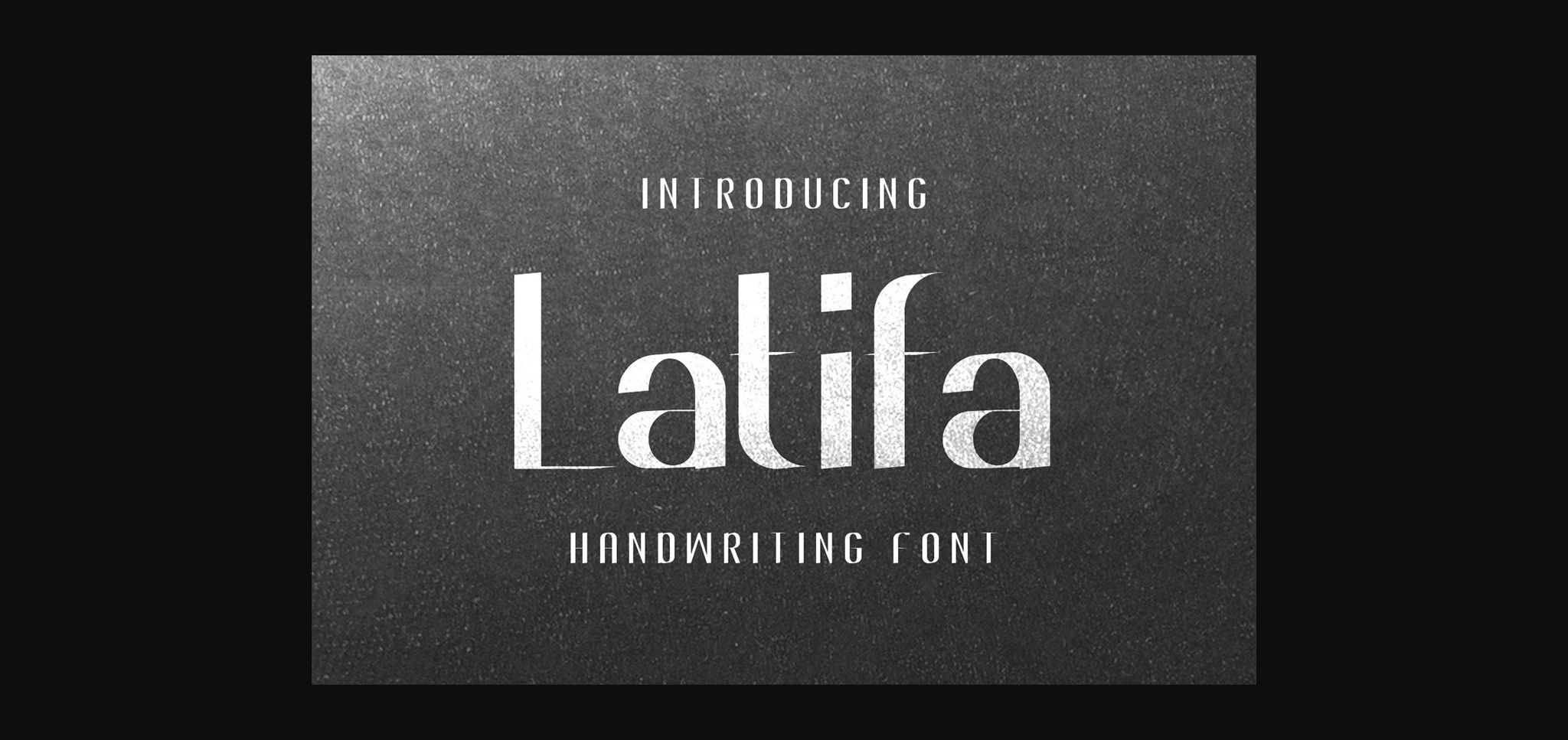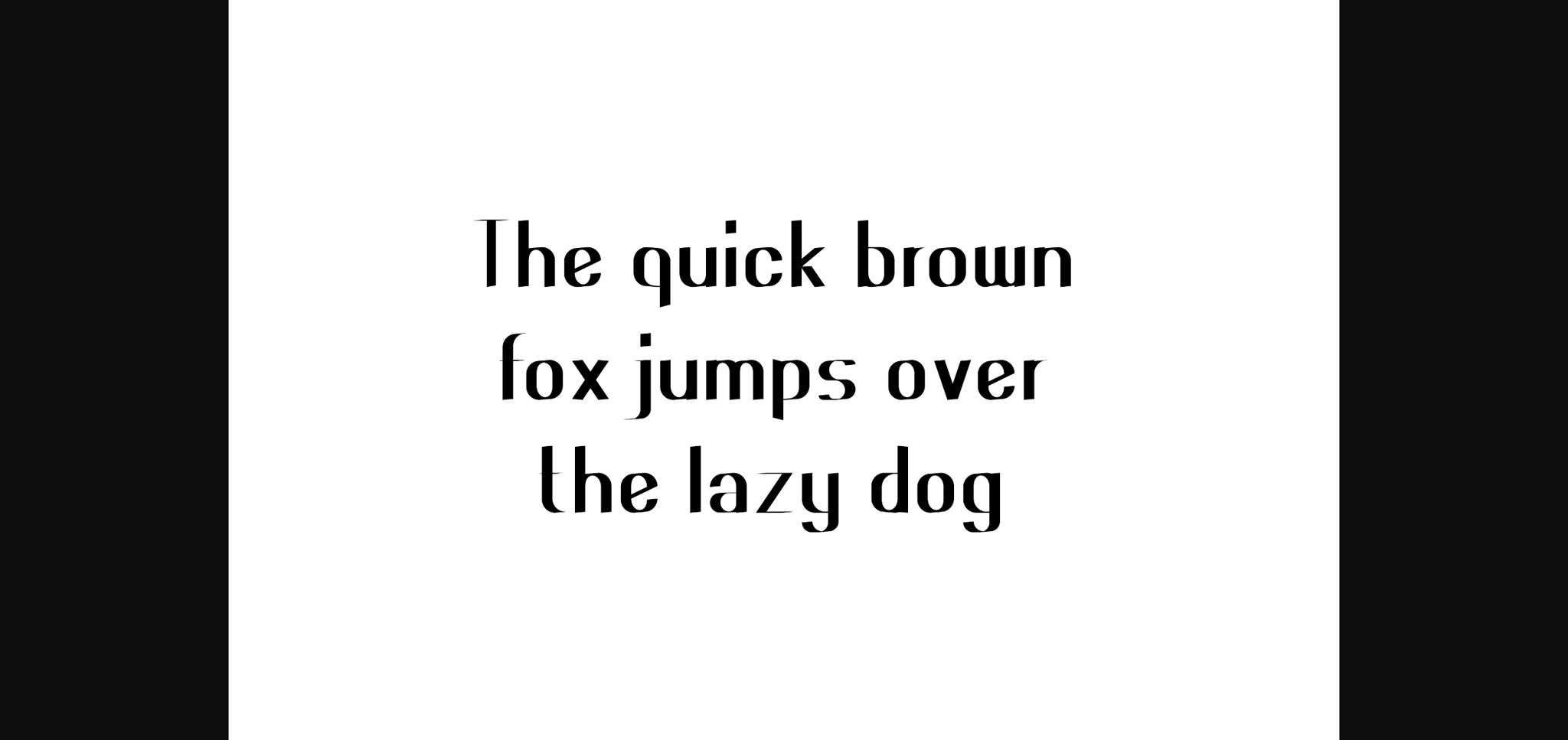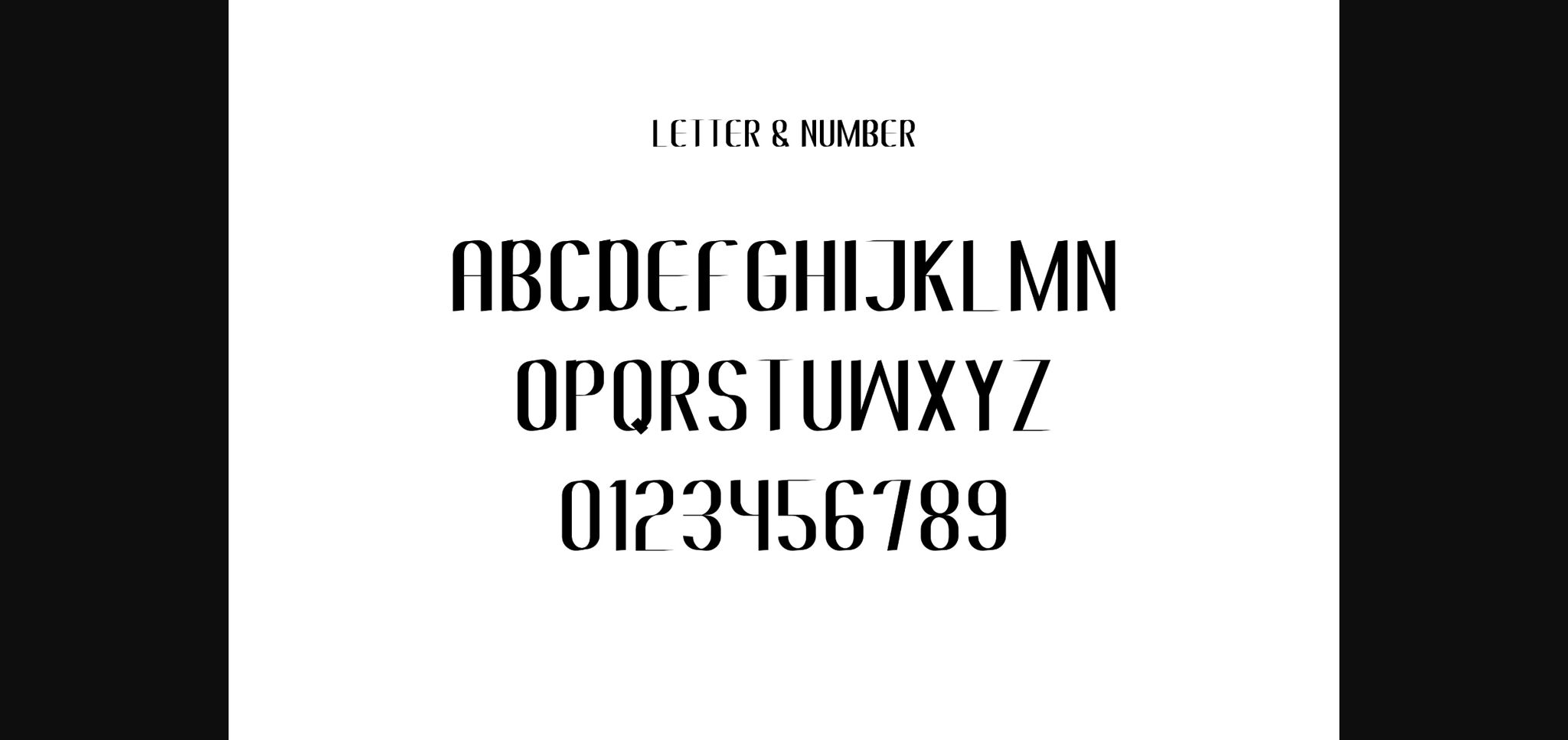
About Latifa Font
Latifa is a modern sans serif font with a strong and memorable impression. Add this unique font to your logos, branding, posters, websites, crafty DIY projects, and more!